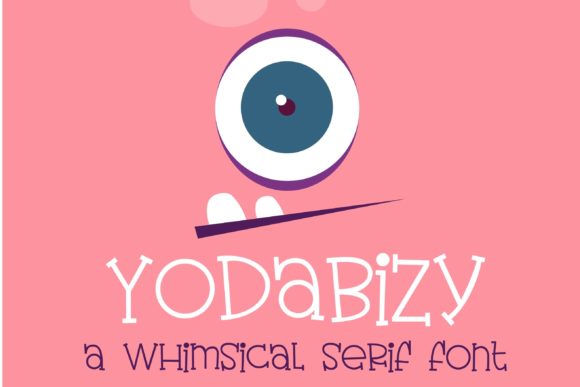
Embrace the Whimsical Charm of Yodabizy: A Serif Font That Unleashes Creativity
In a world of digital expression, fonts hold the power to breathe life into words, transforming them from mere letters into captivating visual symphonies. Meet Yodabizy, a captivating serif font family from Illustration Ink, meticulously crafted to ignite your imagination and elevate your creative projects to new heights.
Yodabizy, a chic and whimsical serif font, beckons you to embark on an enchanting journey through the realm of typography. Its graceful curves and playful serifs evoke a sense of wonder and nostalgia, reminiscent of classic children's tales and fantastical adventures. Whether you're designing logotypes, crafting eye-catching headlines, or creating a unique corporate identity, Yodabizy promises to make your vision shine.
Step into the world of Yodabizy and discover a font that's perfect for:
- Apparel Industry: Create T-shirts, hoodies, and accessories that exude personality and charm, captivating the hearts of young and old alike.
- Posters and Flyers: Design posters, flyers, and advertisements that leap off the page, grabbing attention with Yodabizy's playful yet refined character.
- Music, Movie, and Game Design: Bring your creative projects to life with Yodabizy's enchanting aura, setting the tone for unforgettable experiences.
- Magazines and Books: Craft magazine covers, book covers, and interior layouts that transport readers to extraordinary worlds, immersing them in the magic of Yodabizy's storytelling prowess.
- Comics and Cartoons: Create comic strips and animated features that burst with personality, bringing your characters to life with Yodabizy's expressive charm.
- YouTube and Instagram: Captivate your audience with visually stunning YouTube thumbnails, Instagram posts, and stories that leave a lasting impression.
- Websites and Digital Design: Design websites and digital interfaces that radiate creativity and engagement, inviting users to explore and interact with your content.
Yodabizy is not just a font; it's an invitation to unleash your creativity, to embrace the whimsical and the wonderful. Its versatility knows no bounds, adapting seamlessly to a myriad of projects, from playful children's designs to elegant corporate identities.
With Yodabizy as your creative companion, you'll discover a world of untapped potential, transforming ordinary designs into extraordinary expressions. Embrace the magic of Yodabizy today and embark on a journey of creativity that will leave you spellbound.